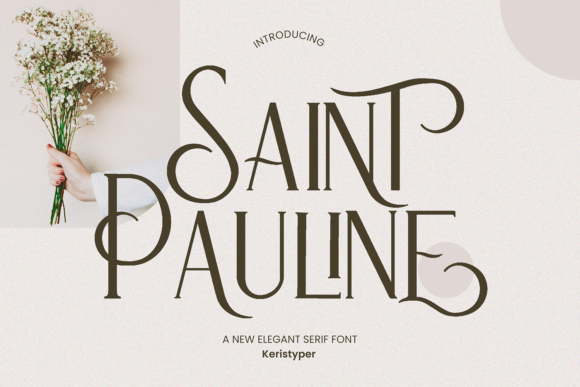
Immerse yourself in the world of elegance and vintage charm with Saint Pauline, the mesmerizing serif font that echoes the beauty of the Art Deco era. Its graceful curves, delicate serifs, and timeless aesthetic infuse your designs with a touch of sophistication that's sure to captivate and inspire.
Step into a world of creative possibilities with Saint Pauline's meticulously crafted glyphs. Express your unique style with an array of special uppercase letters, alternate characters, and enchanting ligatures. Let your imagination flourish as you design logos that exude elegance, packaging that radiates refinement, and invitation cards that evoke a sense of timeless romance.
Whether you're a seasoned designer seeking to elevate your work or a novice eager to explore the world of typography, Saint Pauline is your perfect companion. Its intuitive design and versatile nature make it effortless to use, allowing you to focus on crafting designs that resonate with your audience.
With Saint Pauline, you'll discover a font that transcends trends. Its classic beauty ensures that your designs will stand the test of time, leaving a lasting impression on all who encounter them. Embrace the allure of Saint Pauline and embark on a creative journey where elegance and sophistication intertwine.